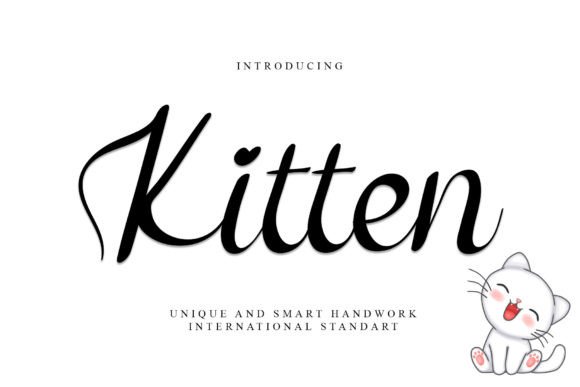
Unleash the charm of handwritten elegance with Kitten Font—a script font family poised to ignite your creative passions. Inspired by the delicate strokes of a seasoned calligrapher, Kitten Font is a masterpiece of digital artistry.
With its sweeping curves, playful flourishes, and enchanting baseline, Kitten Font captures the essence of timeless beauty. Its ligatures dance across the page, connecting letters with an effortless grace that elevates your designs to new heights of sophistication.
Express your individuality with Kitten Font—a versatile script that effortlessly adapts to a myriad of design projects. From heartfelt birthday invitations to whimsical wedding stationery, from captivating marketing campaigns to enchanting social media posts, Kitten Font adds a touch of elegance and charm to every word it graces.
Design with passion, create with flair, and make a statement with Kitten Font—the perfect font for adding a personal touch to your creative endeavors.